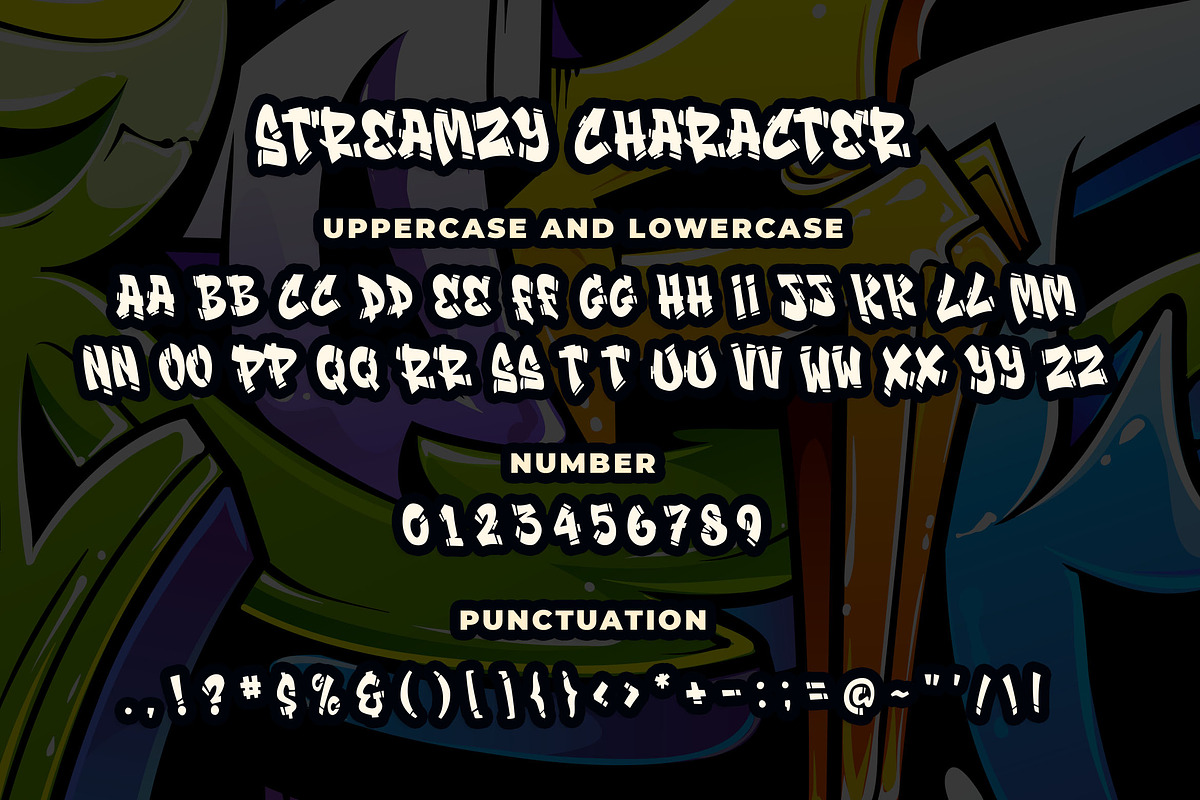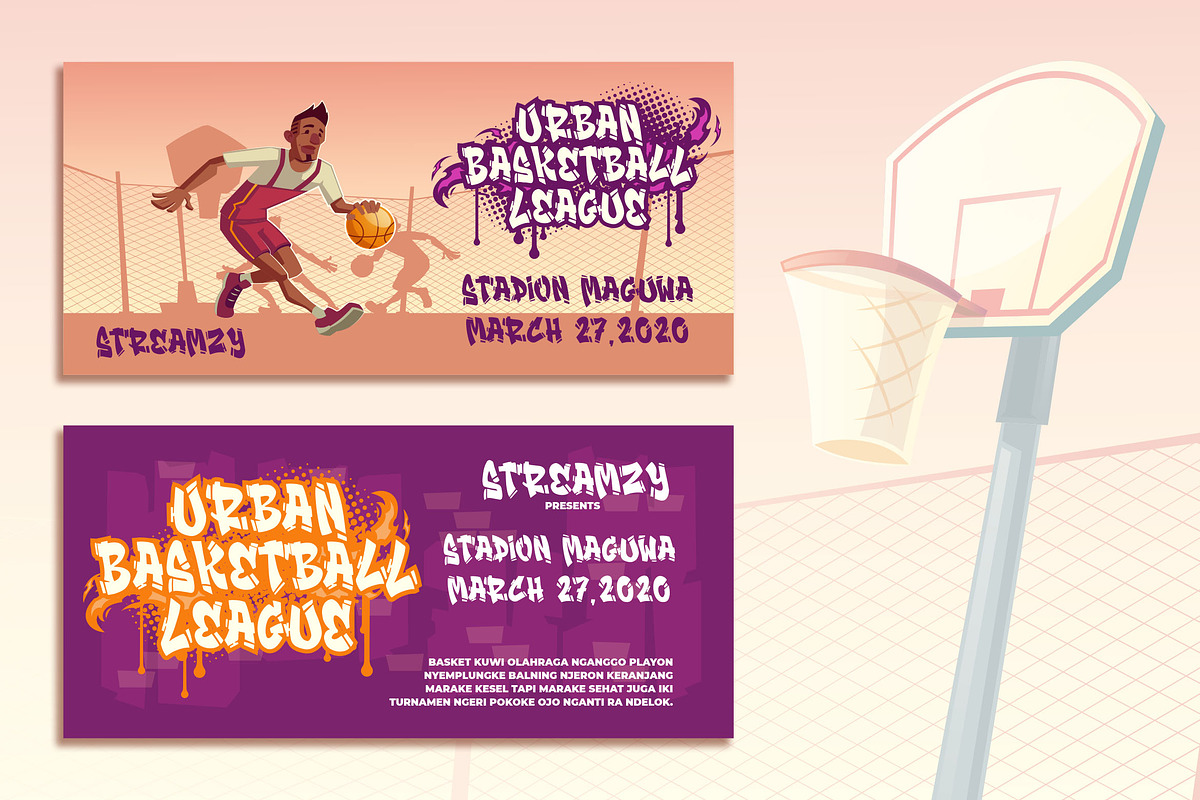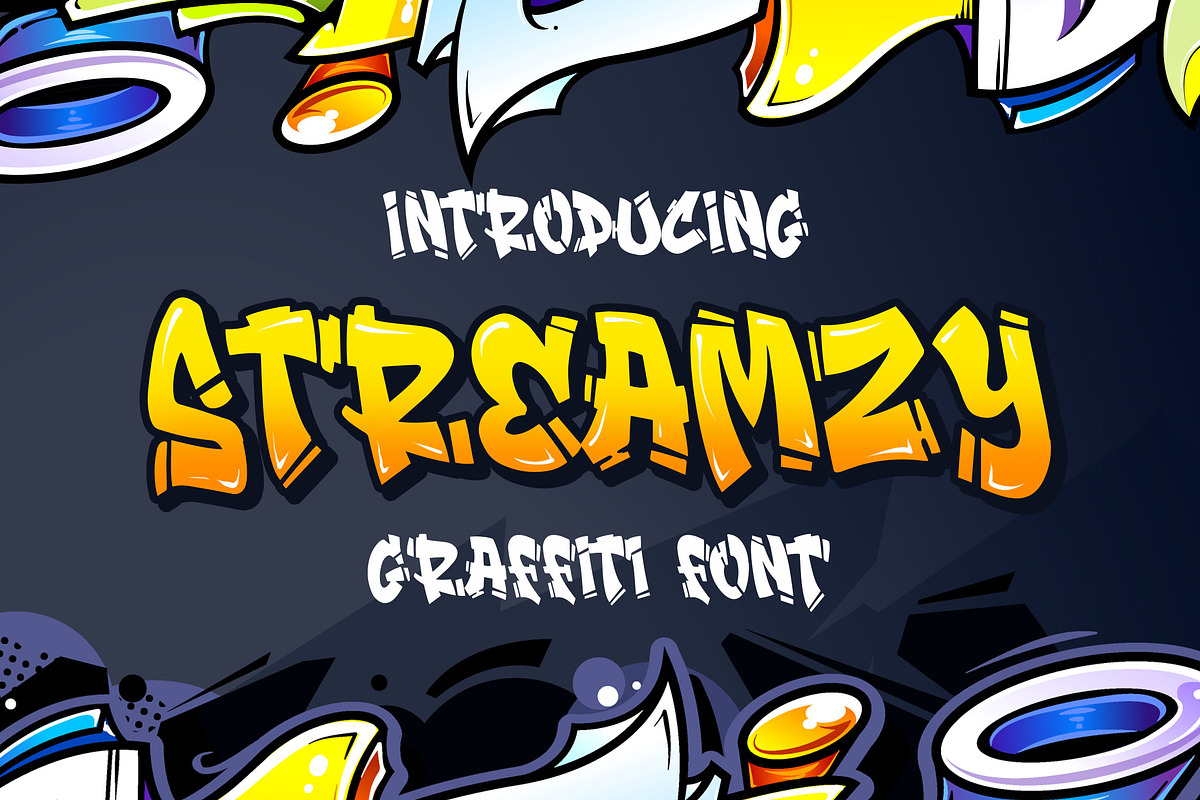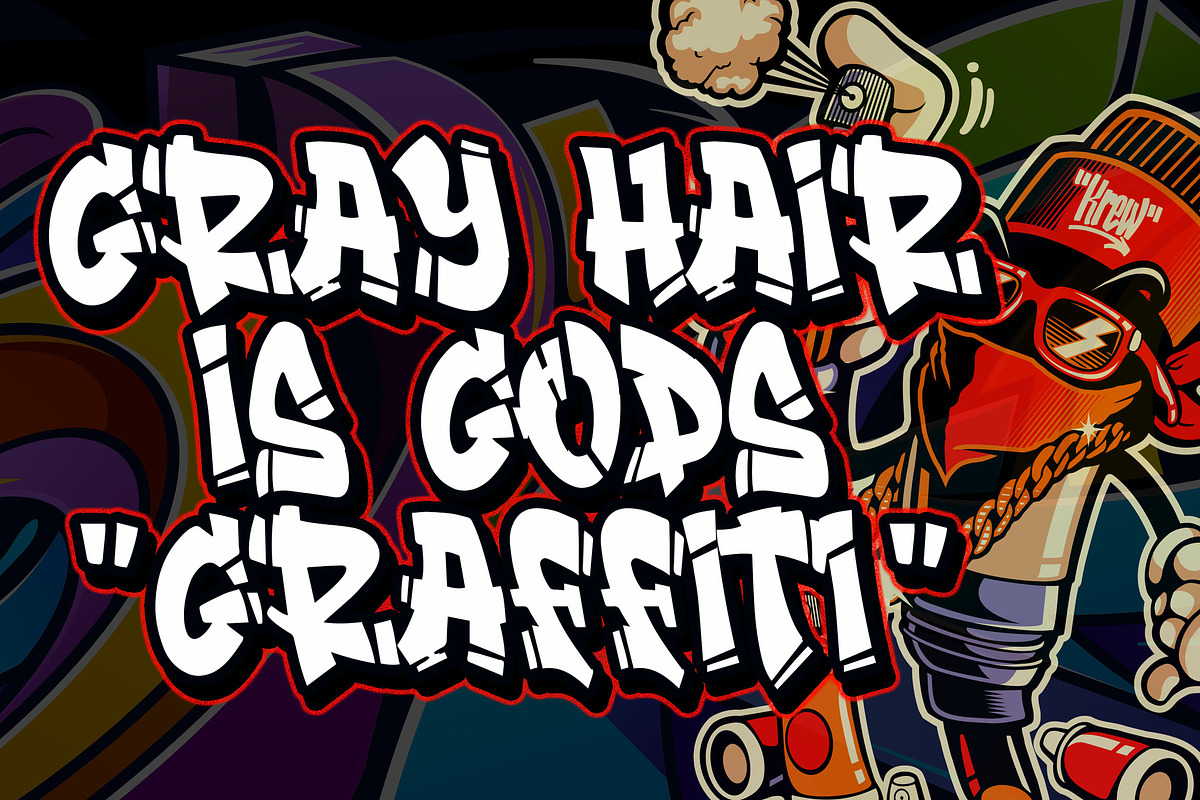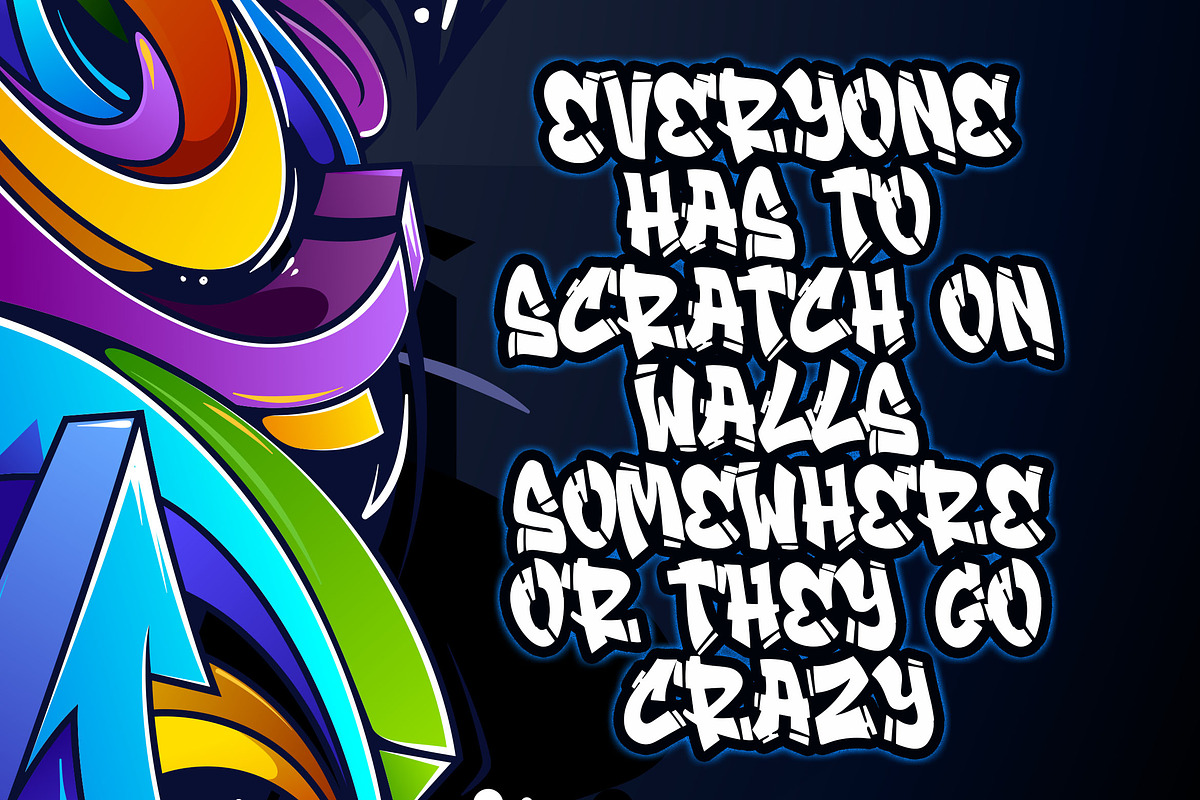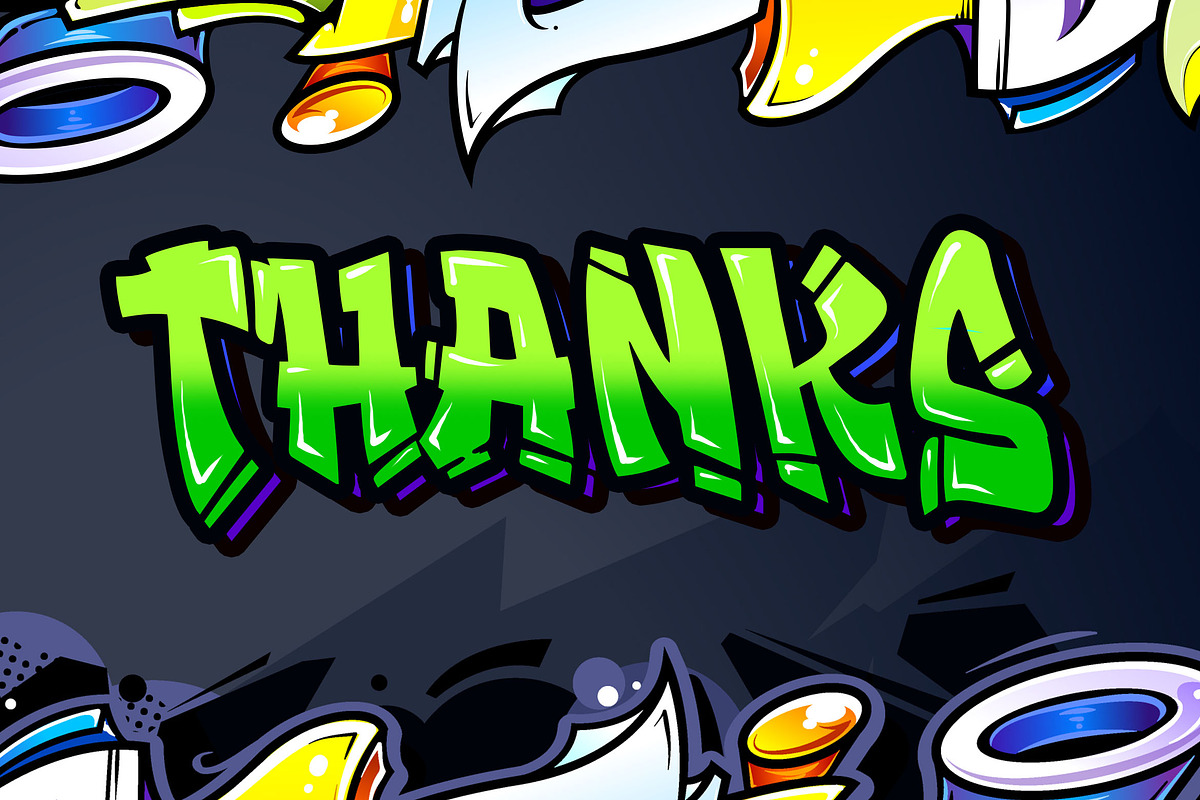
Introducing of our new product the name is Streamzy Graffiti Font. Streamzy inspired by graffiti style with a fun theme very good for graffity poster, Hip Hop music, kids poster, flyer, childrenbook, cartoon, comic etc
Streamzy Graffiti Font- INTRO SALE by Blankids Studio fits naturally into Branding, posters, packaging, typography.